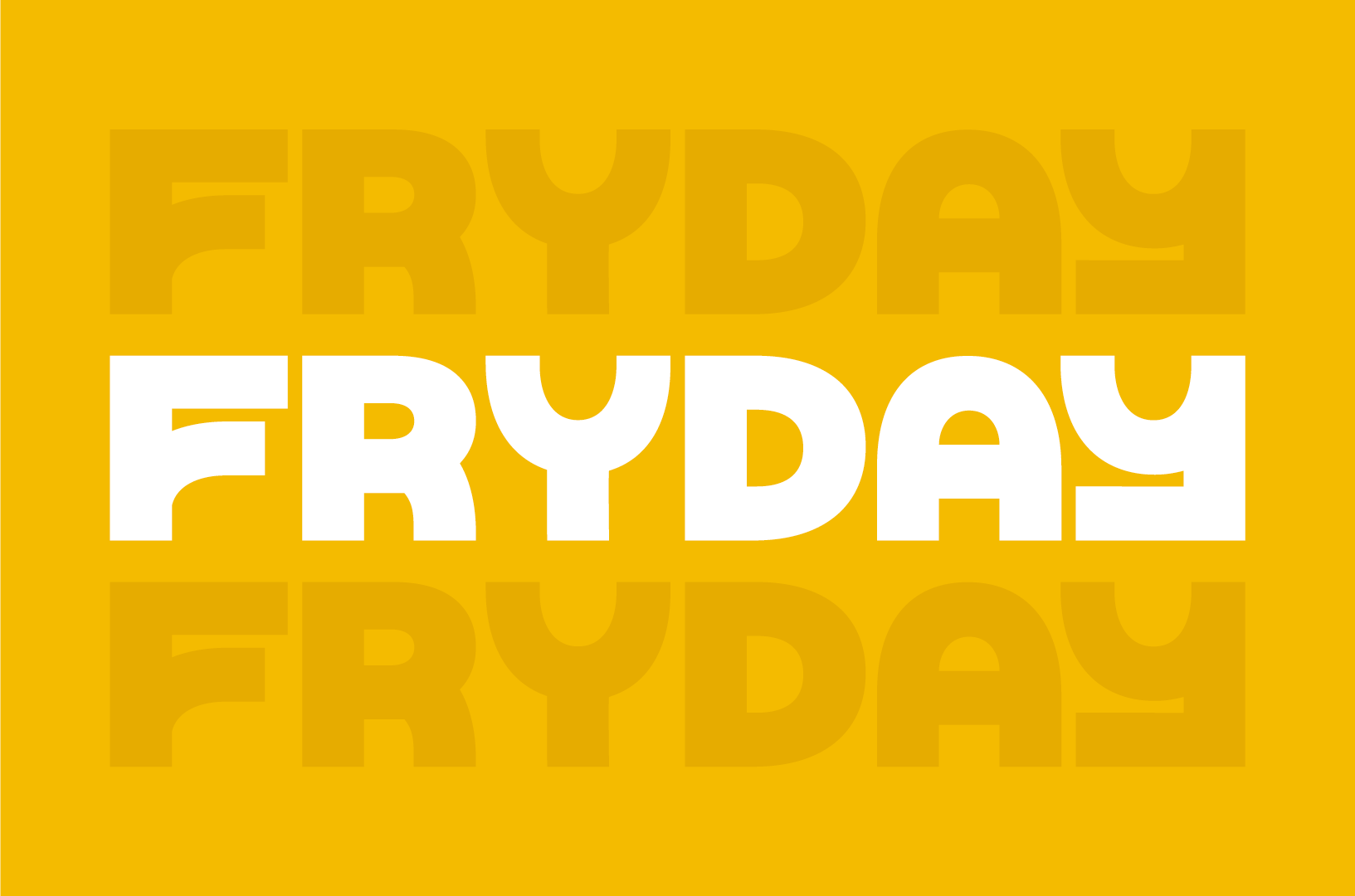
FRYDAY FONT
FRYDAY is a custom bold display font that fuses modern minimalism with Bauhaus-inspired geometry. Clean lines, confident curves, and a playful edge make it perfect for branding, headlines, and anything that dares to stand out. Designed to turn every day into a statement.